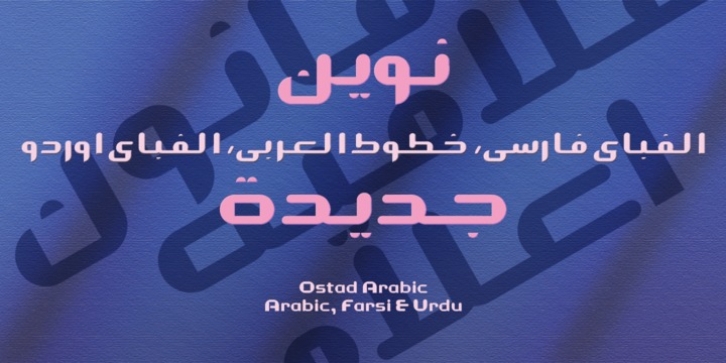
Publisher: Naghi Naghachian
Ostad Arabic was designed by Naghi Naghashian and published by Naghi Naghachian. Ostad Arabic contains 1 style.
Oustad Arabic is designed by Naghi Naghashian. It is a Bold headline font, in 1 weight. This font is a contribution to modernisation of Arabic typography, gives the font design of Arabic letters real typographic arrangement und provides more typographic flexibility. Oustad Arabic supports Arabic, Persian and Urdu.
It also includes proportional and tabular numerals for the supported languages.
OstadArabic design fulfills the following needs:
A tExplicitly crafted for use in electronic media fulfills the demands of electronic communication.
B tSuitability for multiple applications. Gives the widest potential acceptability.
C tExtreme legibility not only in small sizes, but also when the type is filtered or skewed, e.g., in Photoshop or Illustrator. Nima's simplified forms may be artificial obliqued in InDesign or Illustrator, without any loss in quality for the effected text.
D tAn attractive typographic image. Kasha was developed for multiple languages and writing conventions. Nima supports Arabic, Persian and Urdu. It also includes proportional and tabular numerals for the supported languages.
E tThe highest degree of calligraphic grace and the clarity of geometric typography.